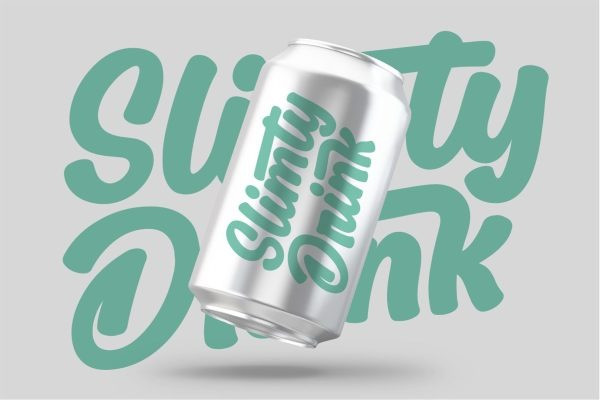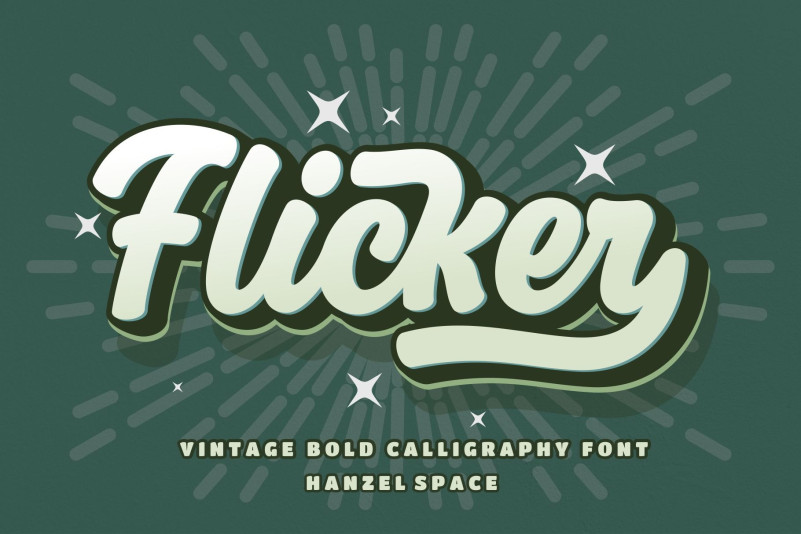
Flicker Font
How outstanding! Flicker – Vintage Calligraphy Font
We’re Introducing the “Flicker” Font we created in 2022. To talk more about the character of this font, please see a preview of how each Glyph in the font will look when applied to a design. This font has a vintage touch and a modern look to each letter, slightly rounded and neat shapes in each curve, plus a Stylistic feature at the end of the letters.
We design this font in such a way that it is suitable when used for design projects so that it looks very attractive. And you can also use this font for logos, branding, brochures, names on product packaging and so on.